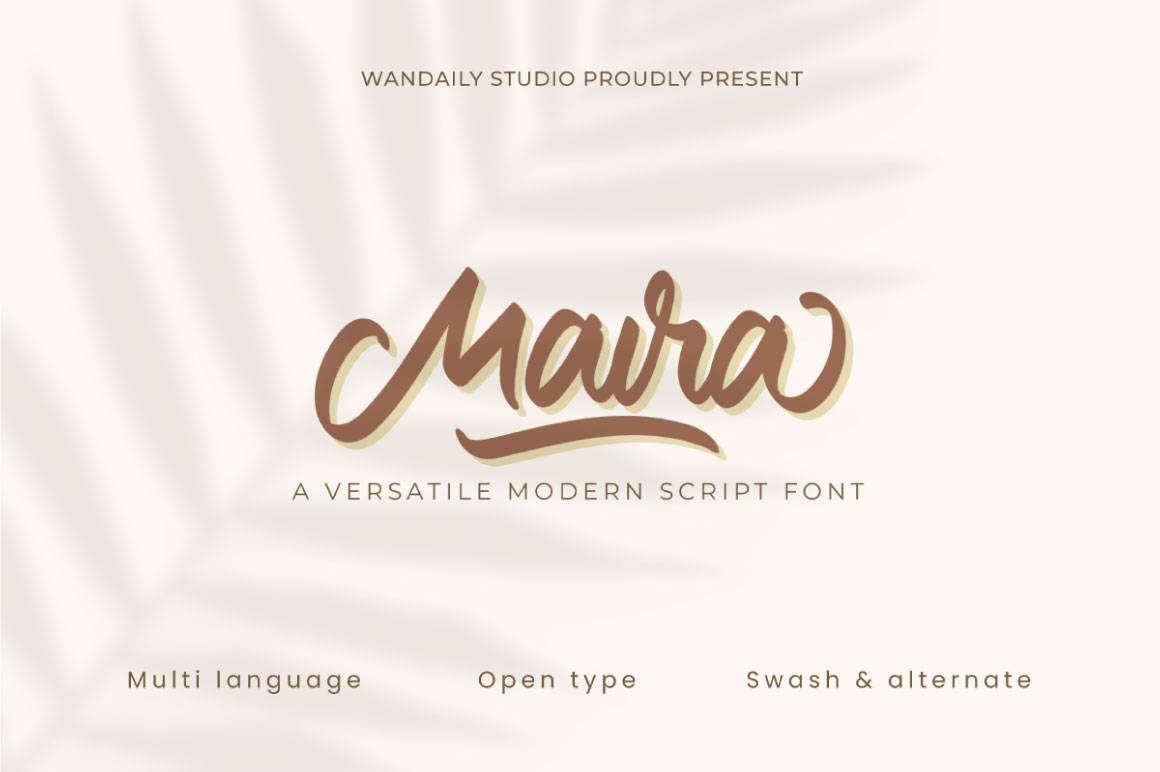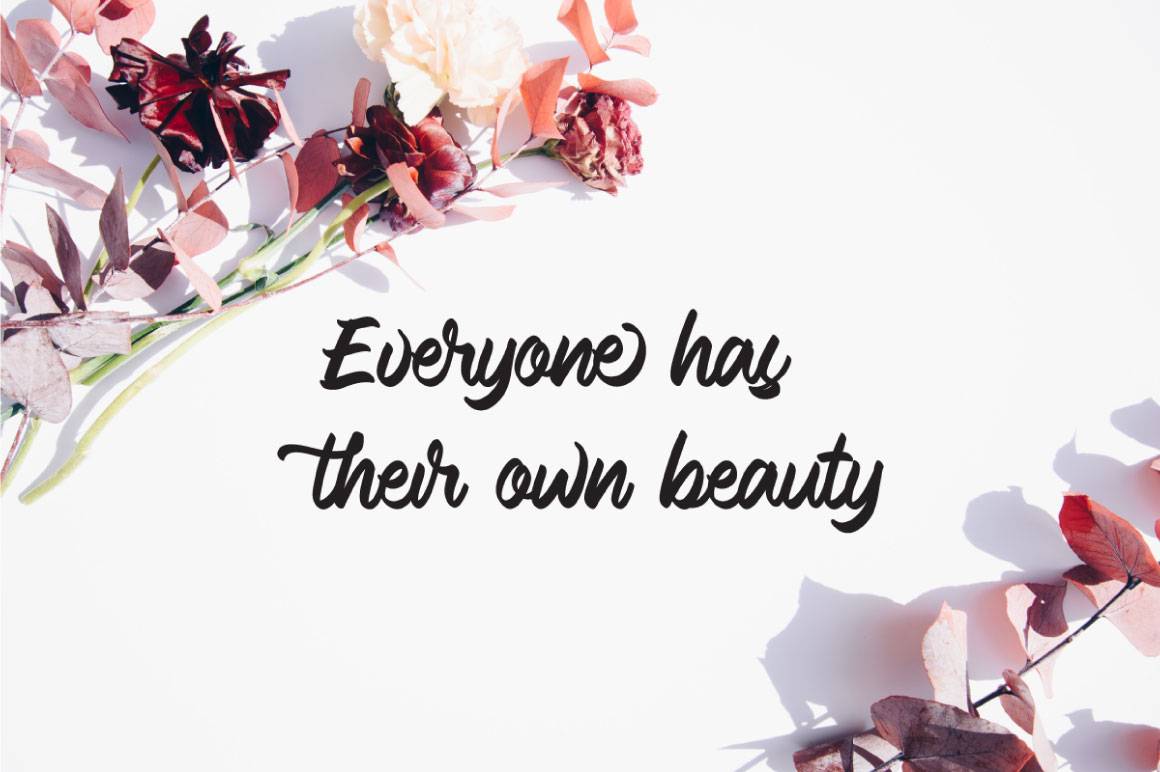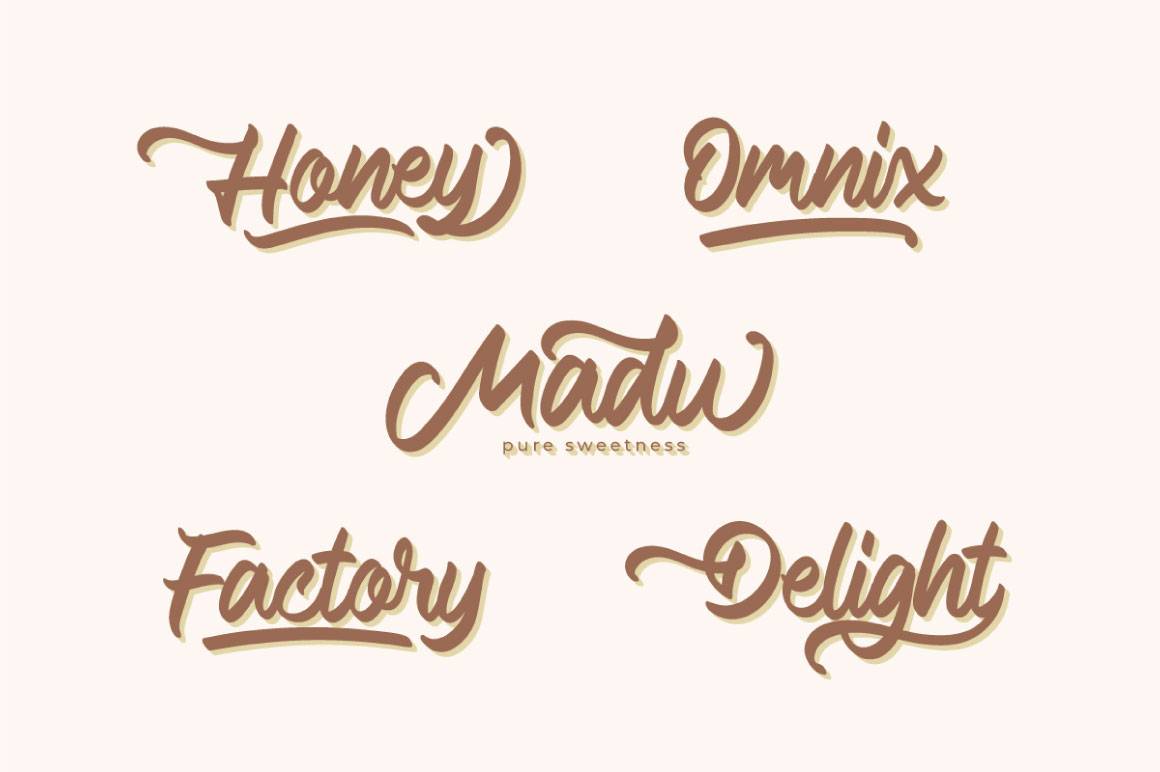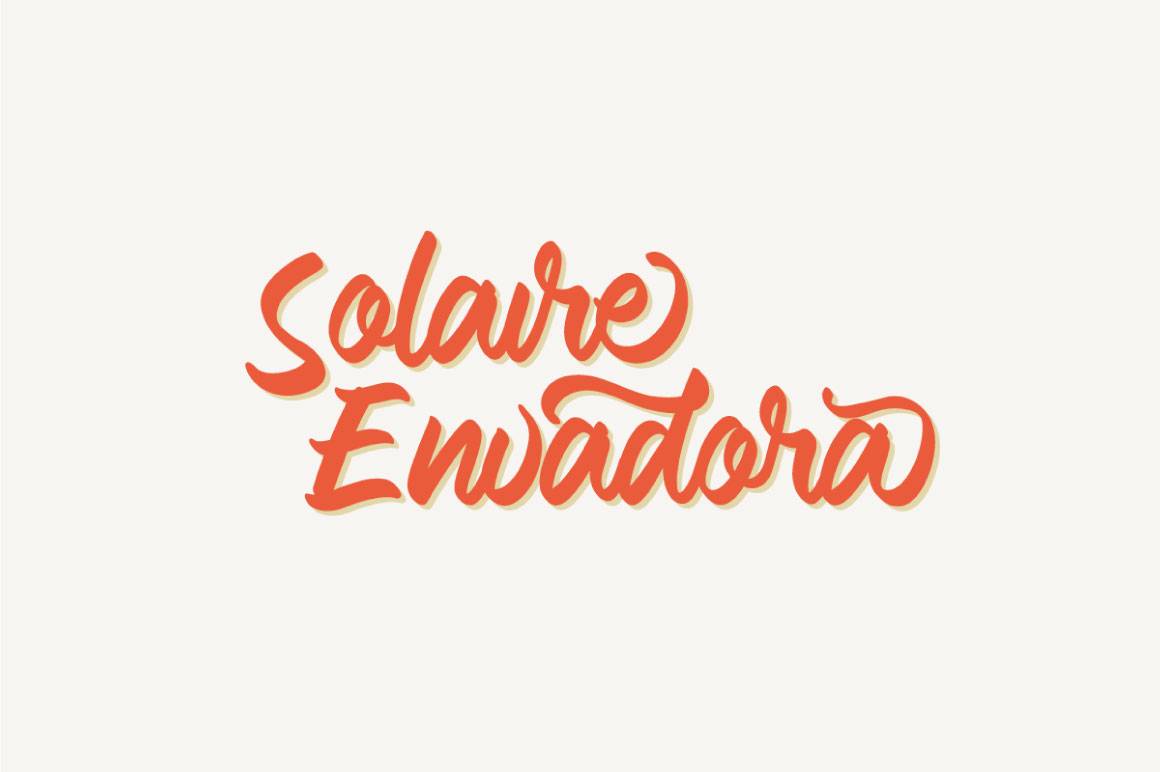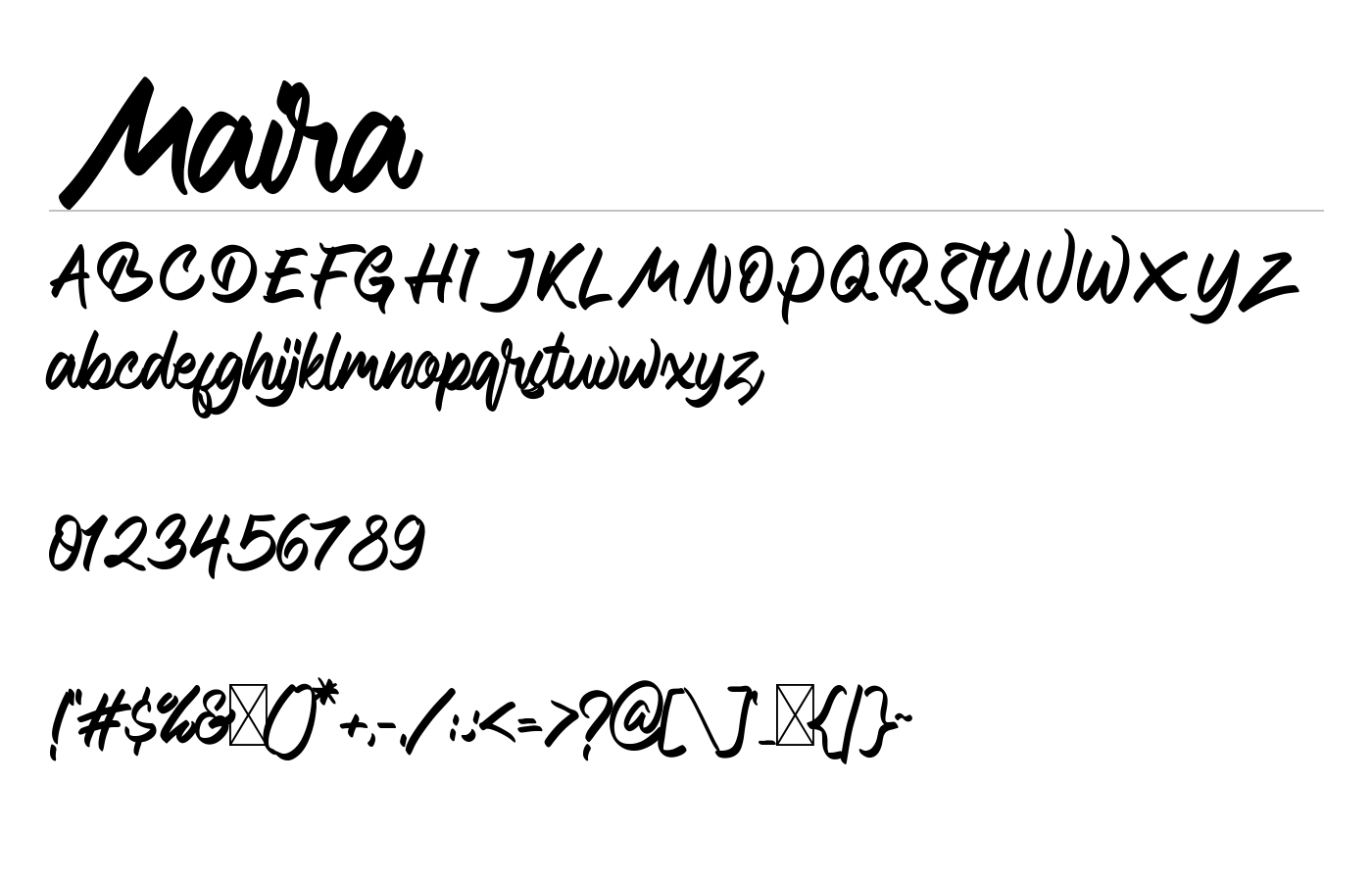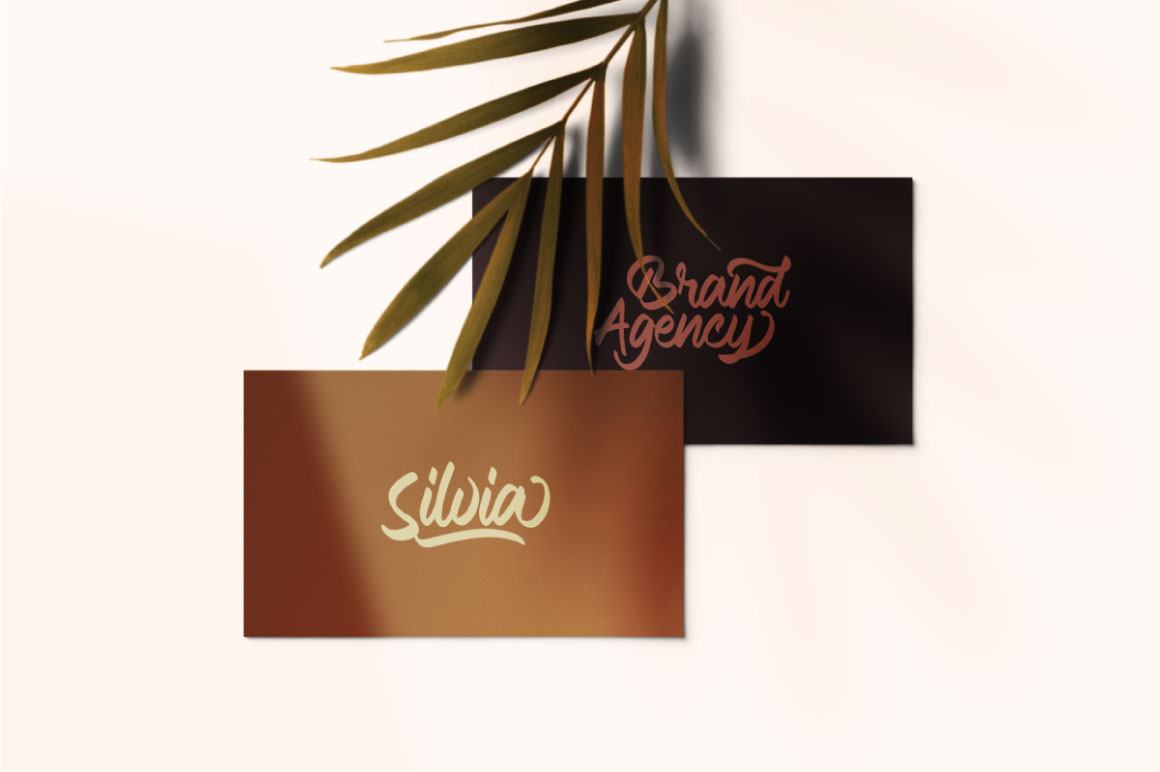
Maira Modern Script is a lively and expressive handwritten font with a bold, brush-like stroke that feels both personal and dynamic. Its fluid, natural letterforms with medium contrast and casual charm make it perfect for creative branding, invitations, or eye-catching headlines. This font adds a friendly, artistic touch to any design needing a modern, approachable script style.
Maira Modern Script Font
About Maira Modern Script Font
| Font family | Maira Modern Script Font |
| Designer | Mohamad Ridwan |